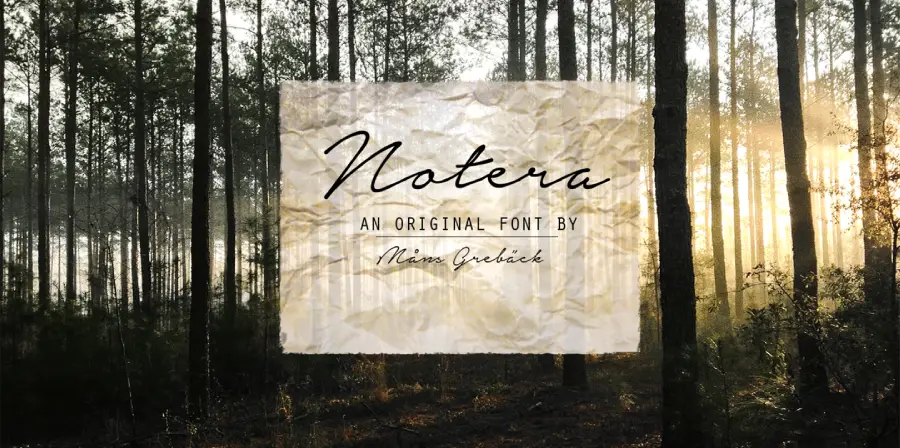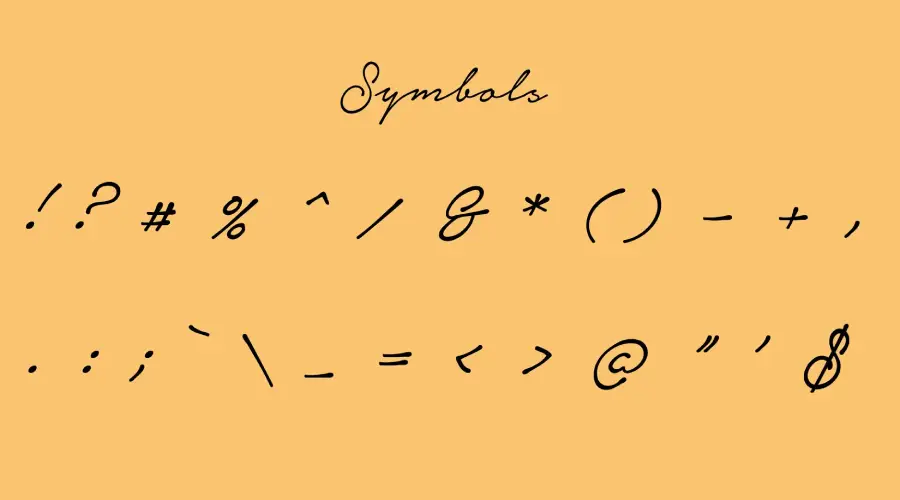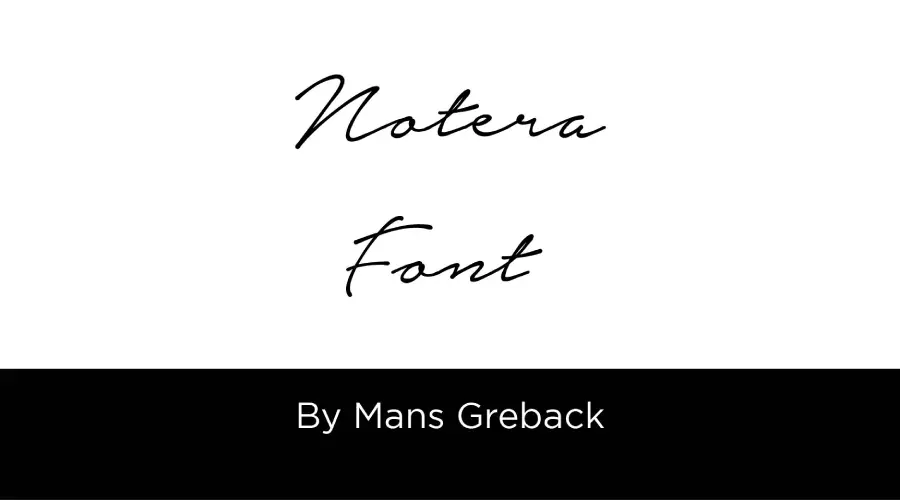
Today we will introduce you to the Notera font. It is a handwritten calligraphy font designed and published by Mans Grobeck. He is a Swedish designer who specializes in script fonts. He has been creating fonts since 2006 and has over 500 fonts. Some of his most popular fonts are Notera, Brannboll, Remachine Script, and Billion Dreams. He also offers custom font design services for clients who want a unique and personalized typeface.
About Notera Font
Notera font was first released in 2013 and updated in 2015. Its elegant curves and swashes make Notera a popular font. It is available in two styles, regular and bold. This font has 371 glyphs and 358 characters. Notera font is a Unicode font, which means it can be used to type in any language using the Latin alphabet. It is an OpenType font, which means it supports typographic features, such as ligatures, stylistic alternates, and kerning. It is free for personal use. You will need a license if you want the complete set, including all characters. You can buy it from the author or from the link below.
A handwritten font like Notera is suitable for a wide range of purposes and contexts. Its handcrafted characters give the designs a unique look and feel. You can use it to create logos because its distinct style ensures brand recognition. Additionally, this font stands out for its elegance and personalization. It also works well on custom promotional materials such as banners, brochures, posters, and cards.
Its handcrafted charm and versatility make Notera a must-have font. Whether you’re crafting a logo, designing a website, or creating promotional materials, Notera promises to add beauty and authenticity.